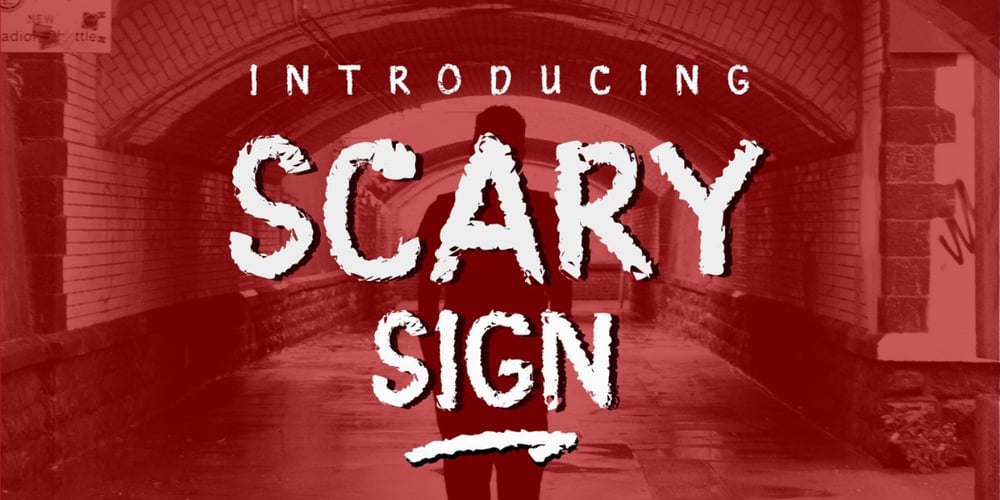
Scary Sign Font Family was designed by Java Pep and published by Java Pep. Scary Sign contains 2 styles and family package options. Scary Sign is inspired by scary novels and is styled as a rough font. It’s perfect to place in your project which has horror, scary, dark, or spooky themes. But this font also perfects for other themes according to your creativity. You will get a free 12 swash bonus to complement the Scary Sign font.